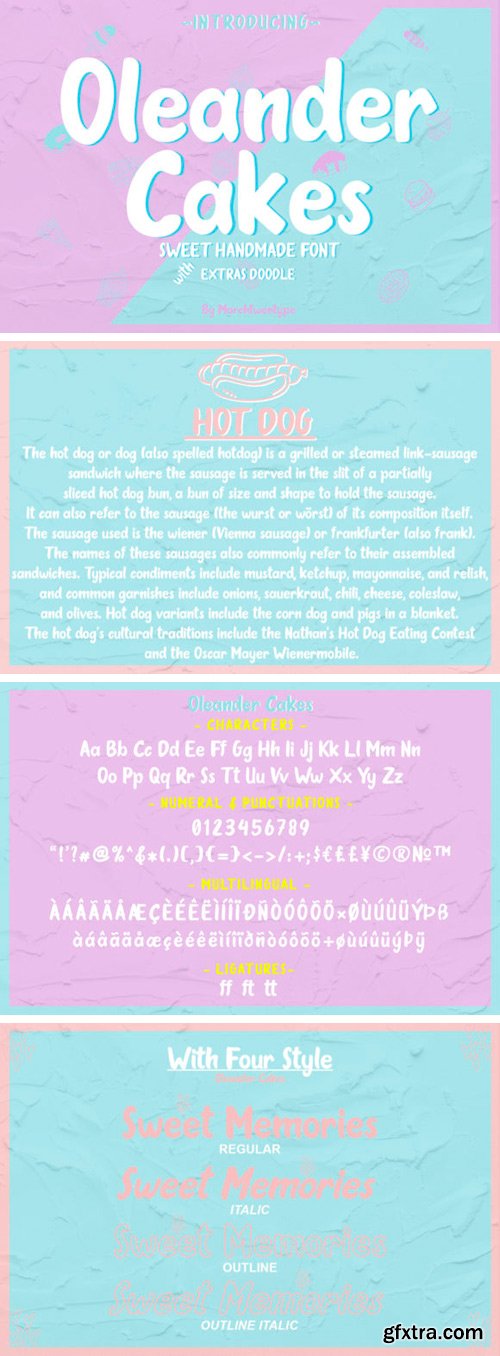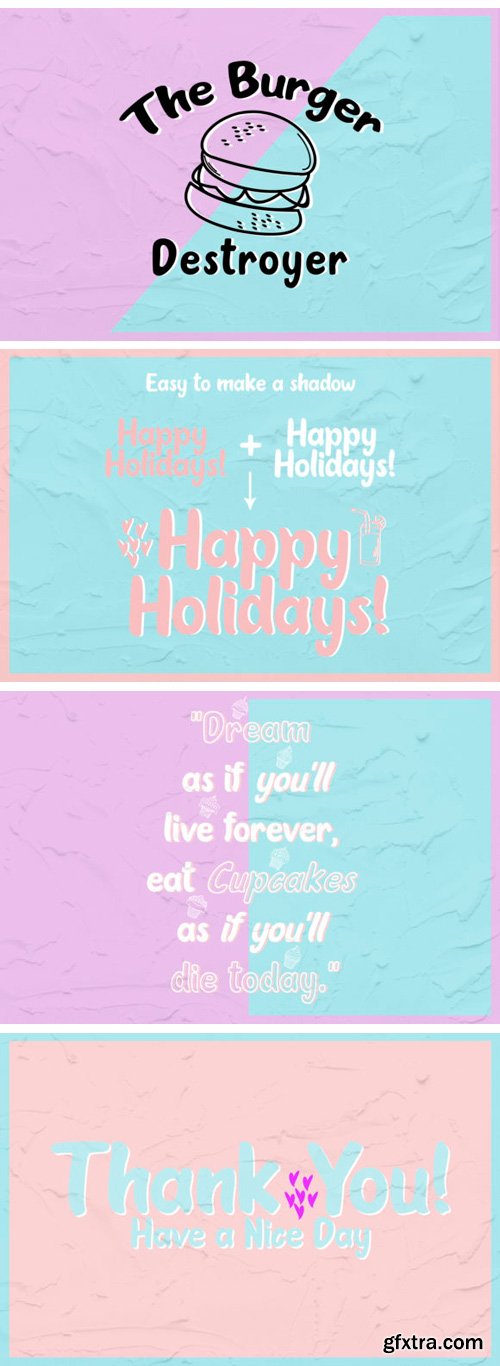
奥勒恩德蛋糕字体
Oleander Cakes Font
The Oleander Cakes is an amazing display font, made with manual brush strokes. It includes four styles; regular, italic, outline and outline italic which can be combined perfectly but are also amazing as strong stand-alones.
It’s perfect for branding materials, design logos, posters, brochures, flyers, shirt designs, printing, book covers and more. Included as a bonus are extras doodle clip art’s.